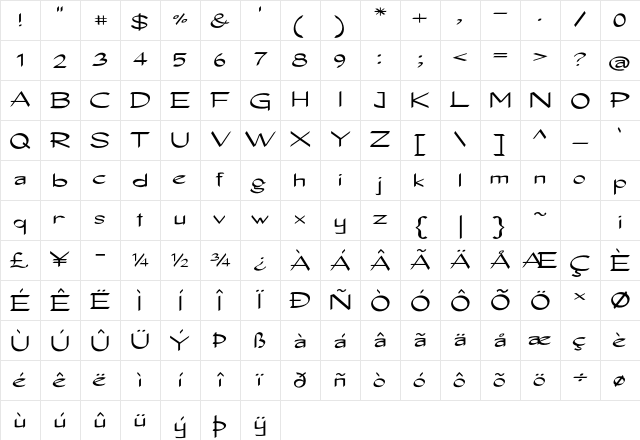
Complete Caveo Extra-expanded Regular glyph index. Displaying only characters natively supported by Caveo Extra-expanded Regular font.
Caveo is a composed and adaptable typeface that performs quietly and consistently across a wide range of design contexts.